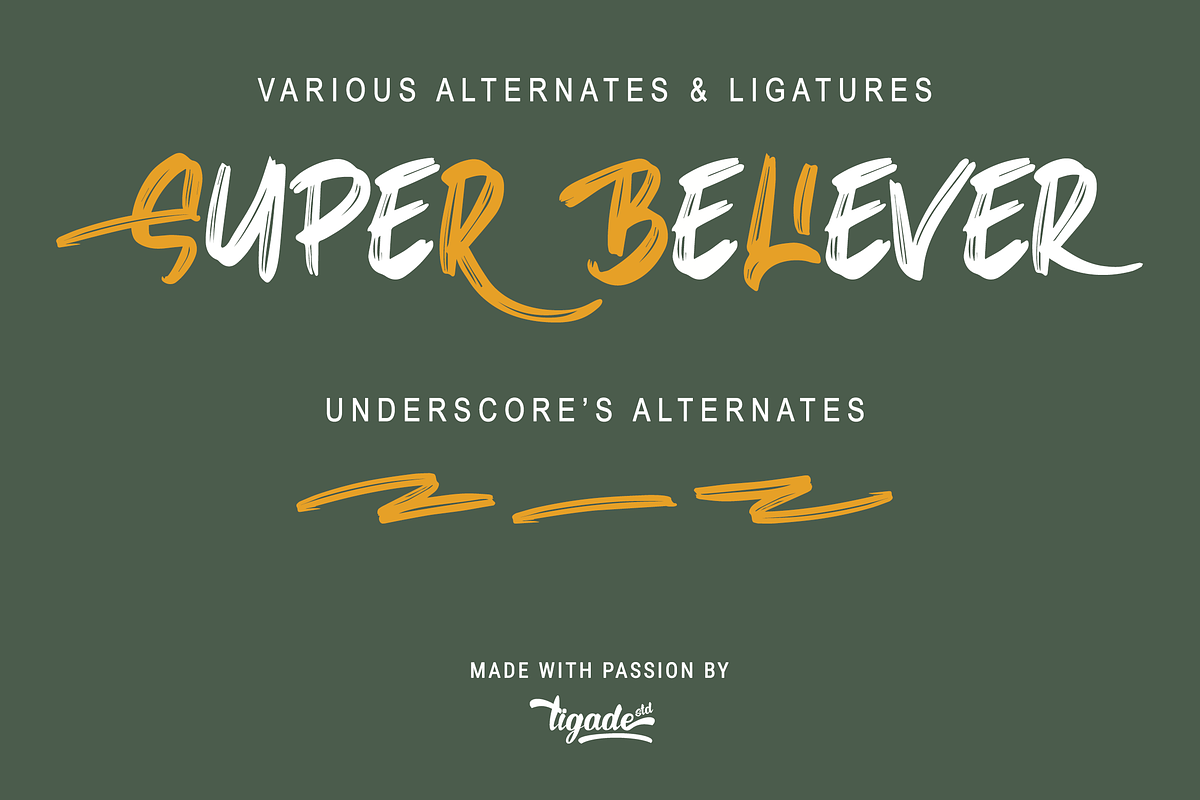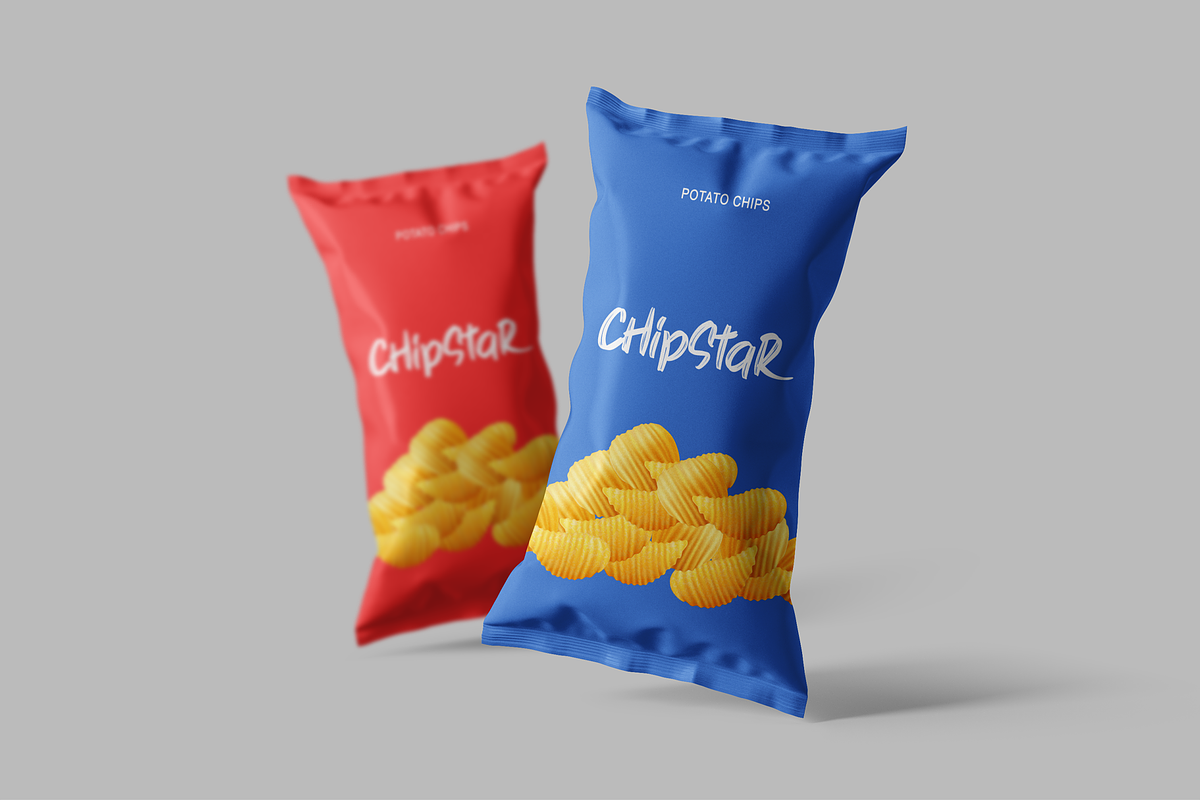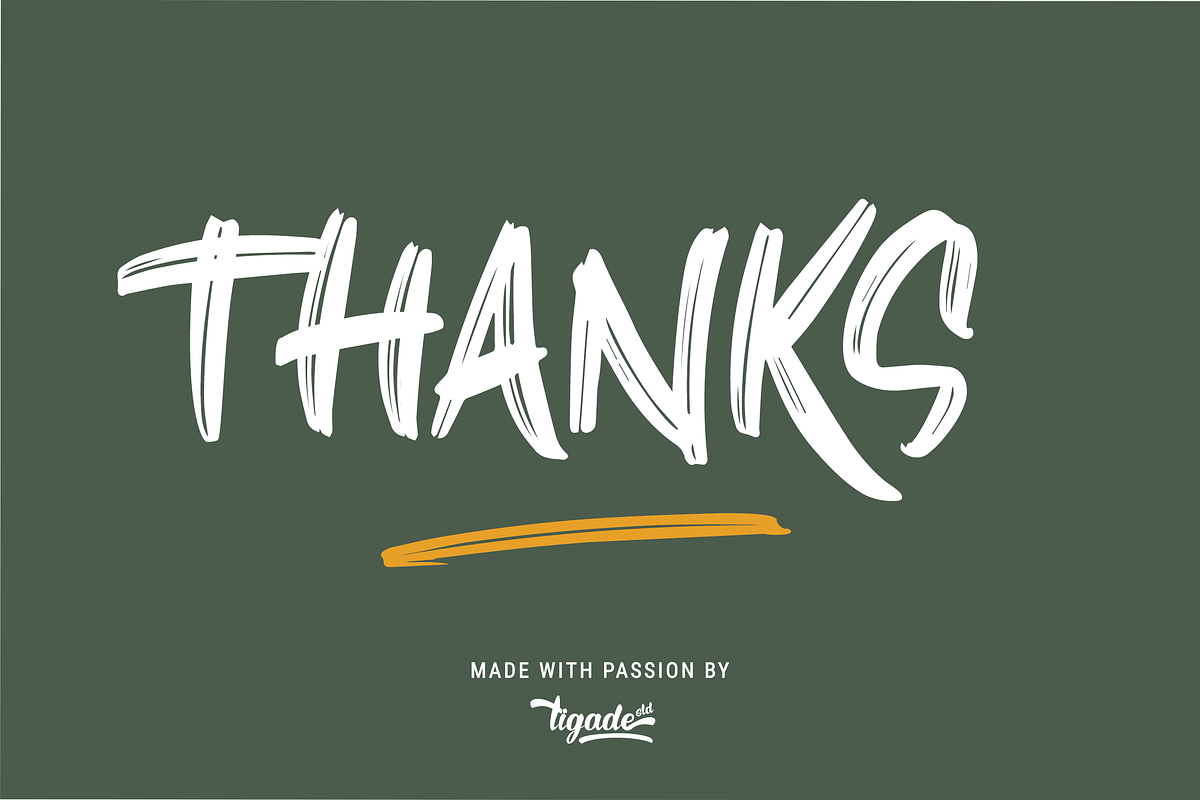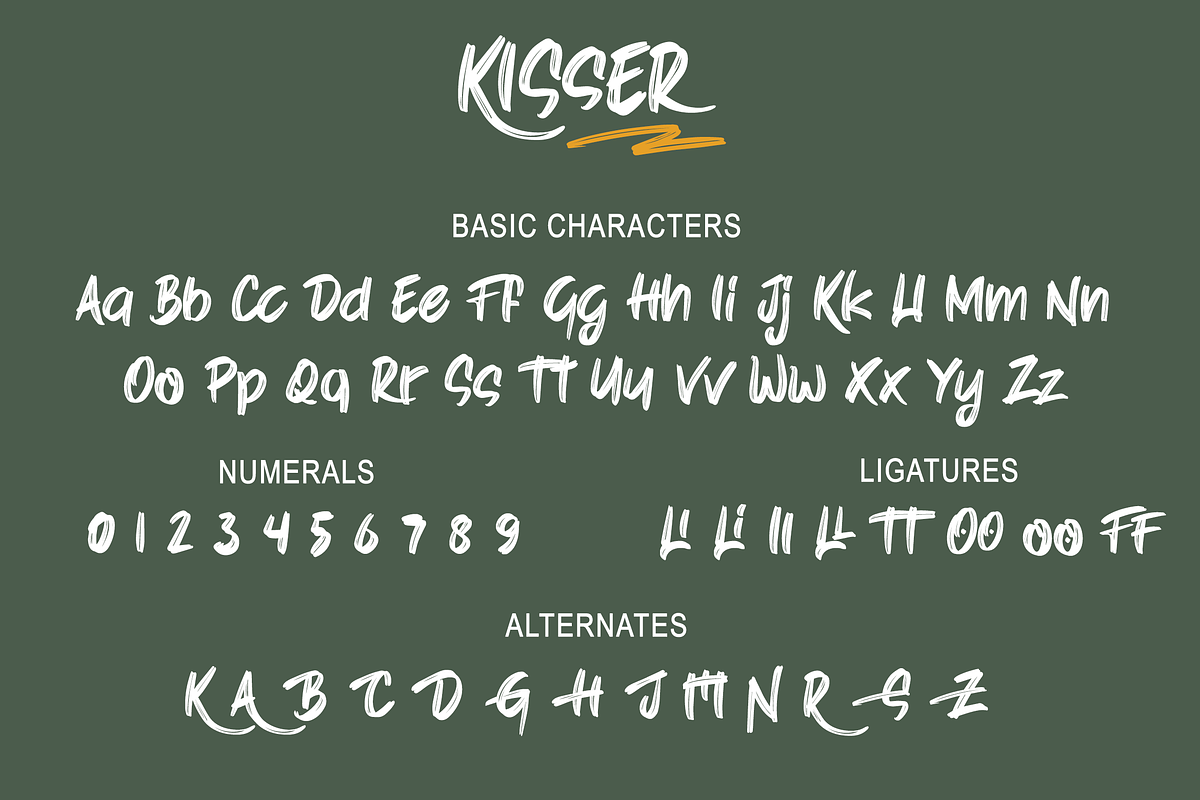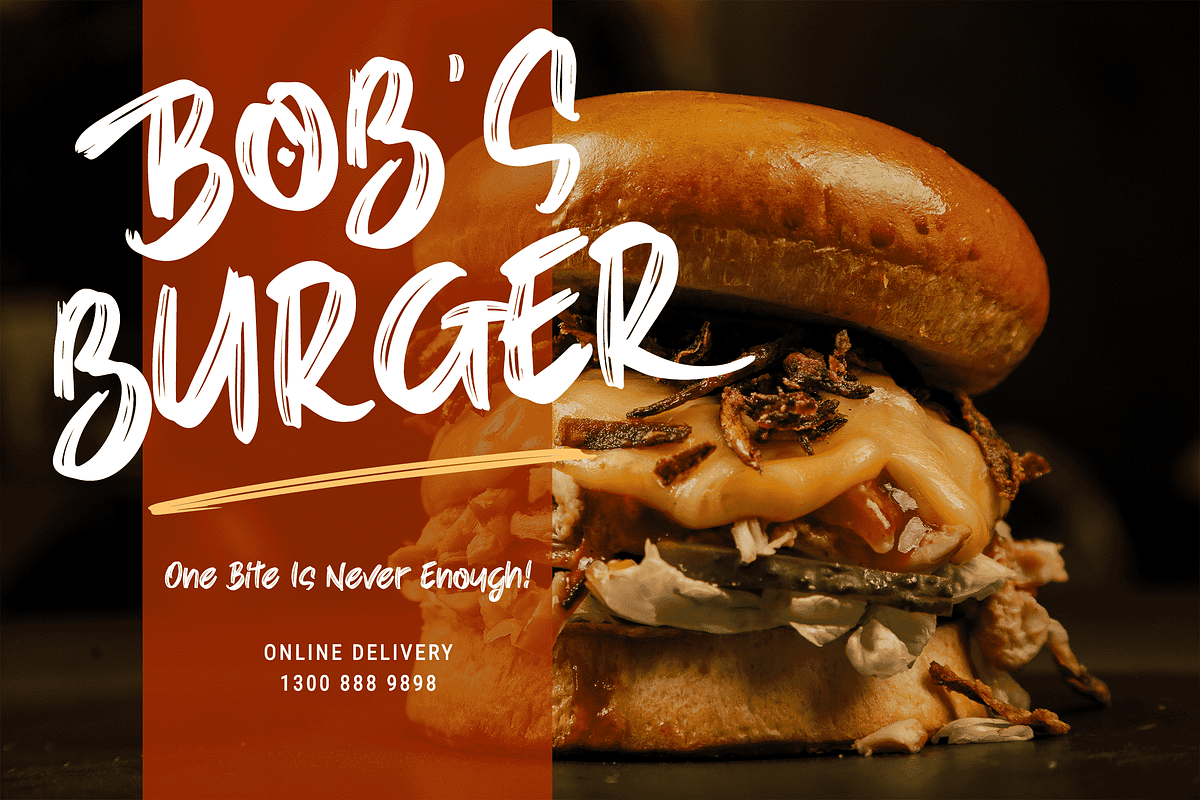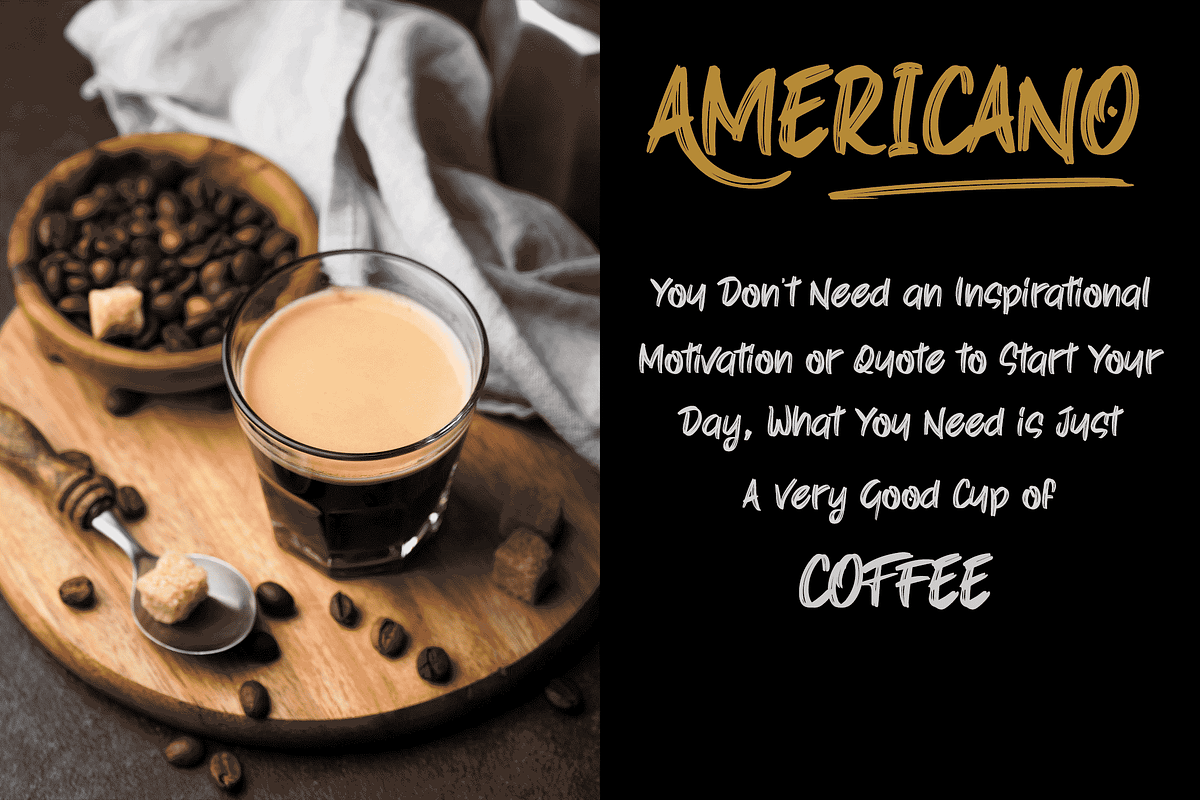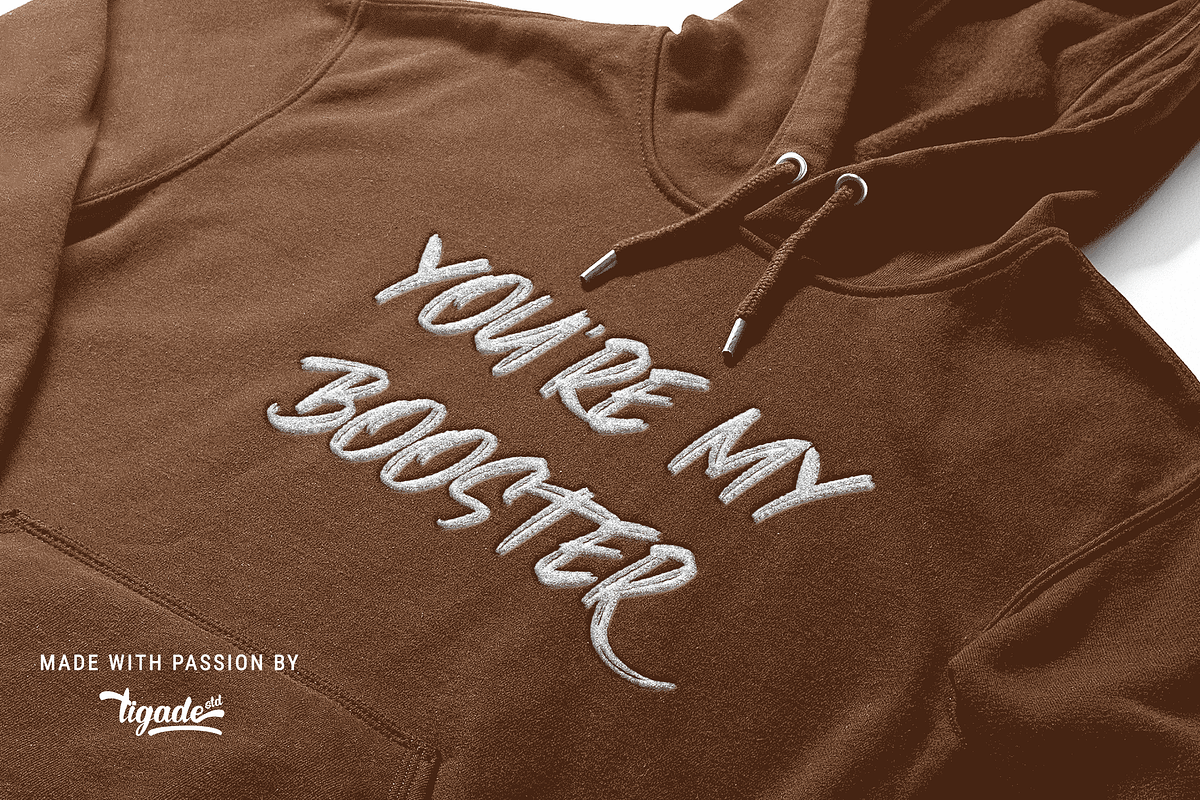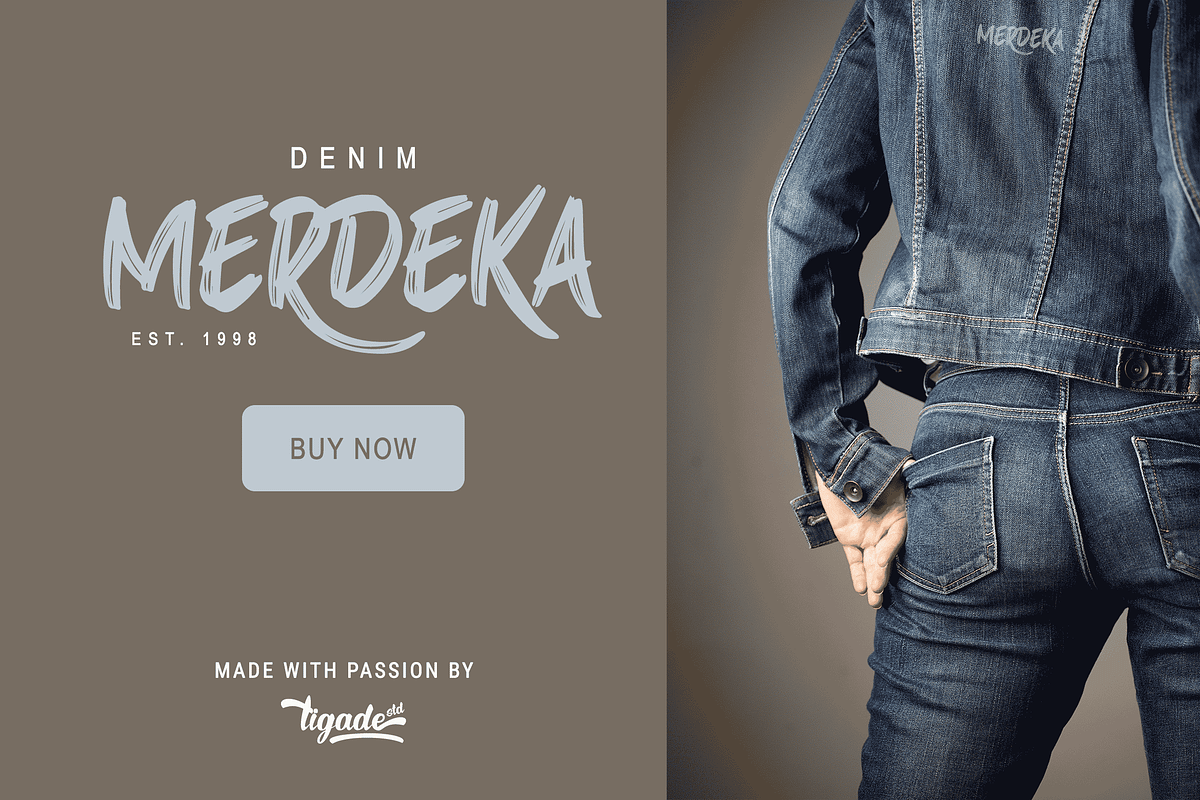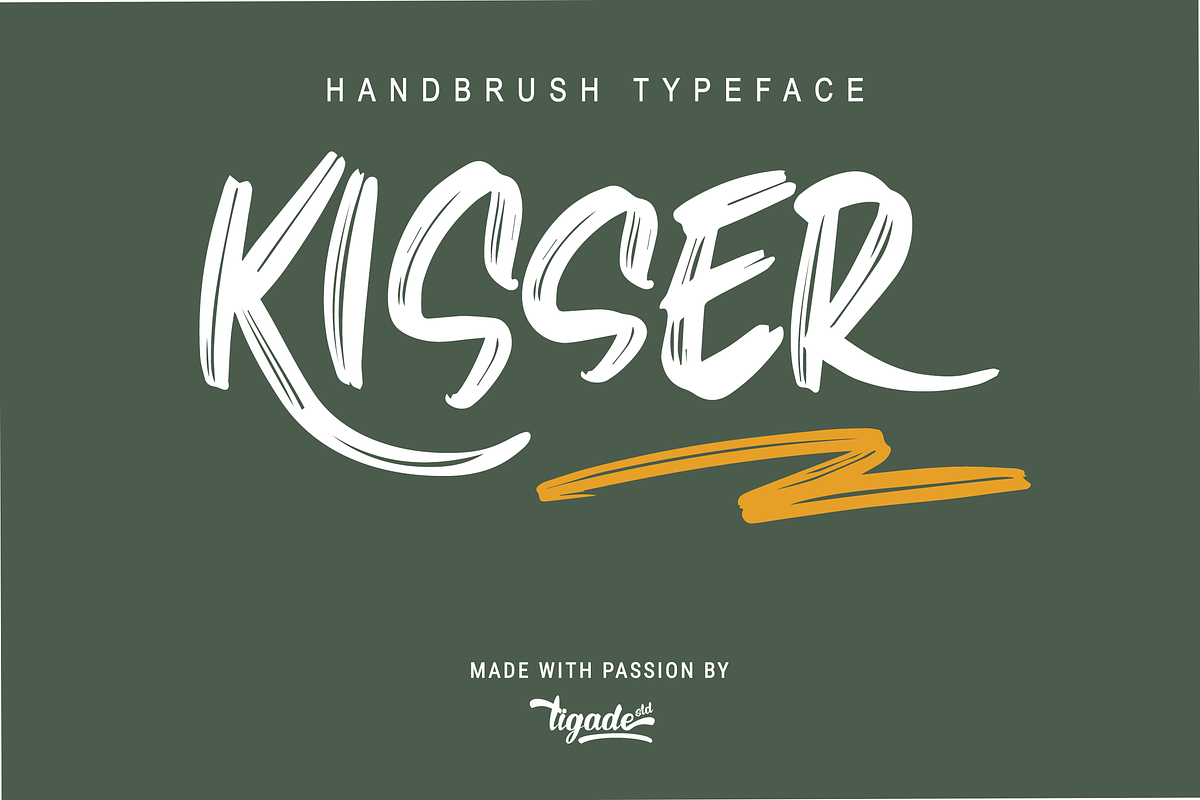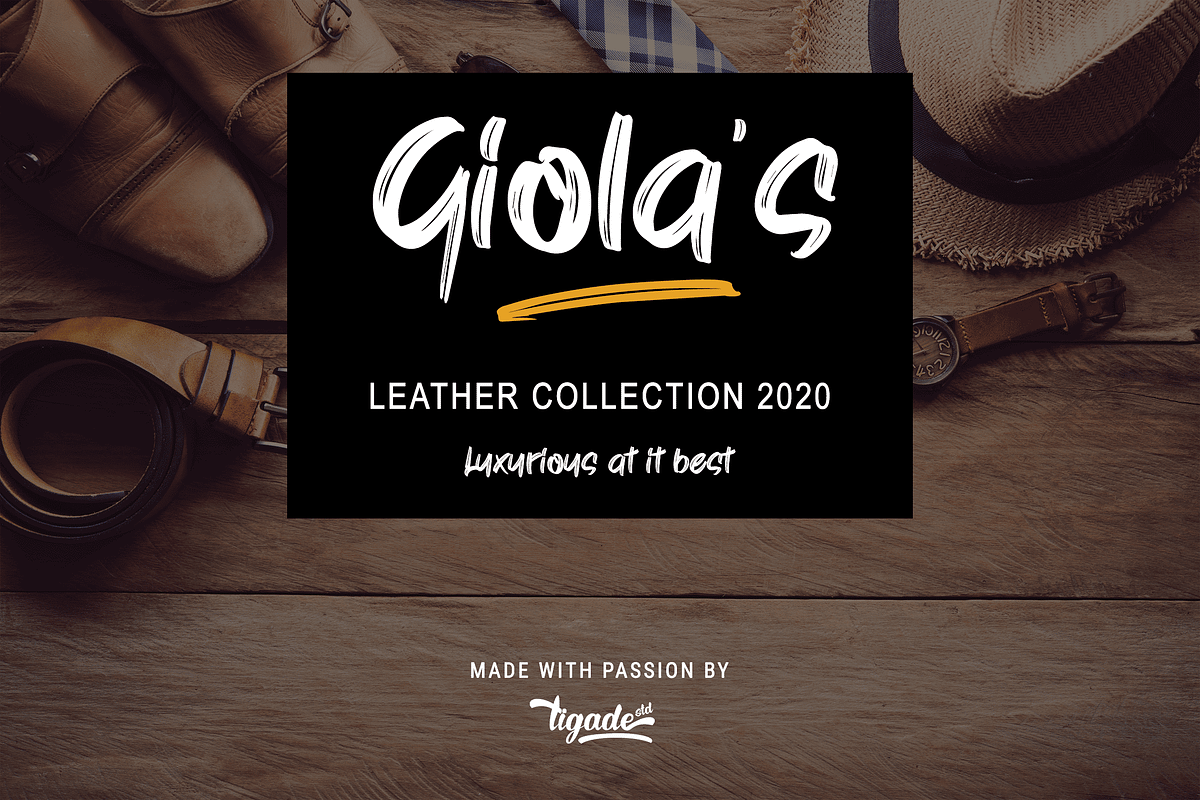
Kisser | Natural Stroke Brush
Kisser is a strong, street-friendly brush font bursting with spirit. With extra attention to natural strokes and sharp details, Kisser is ideal for logos, apparel, quotes, product packaging, or anything which needs a typographic turbo-boost.